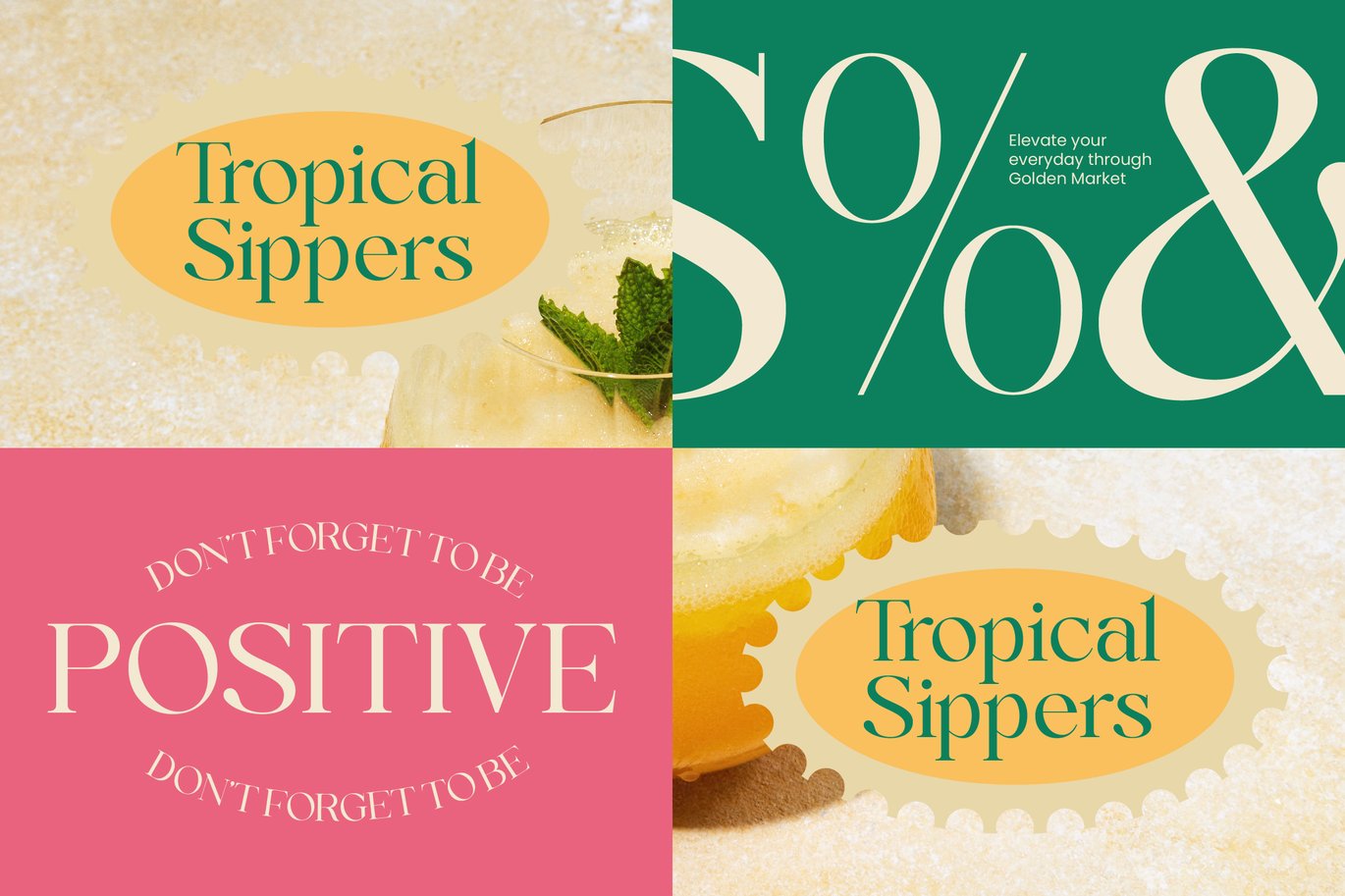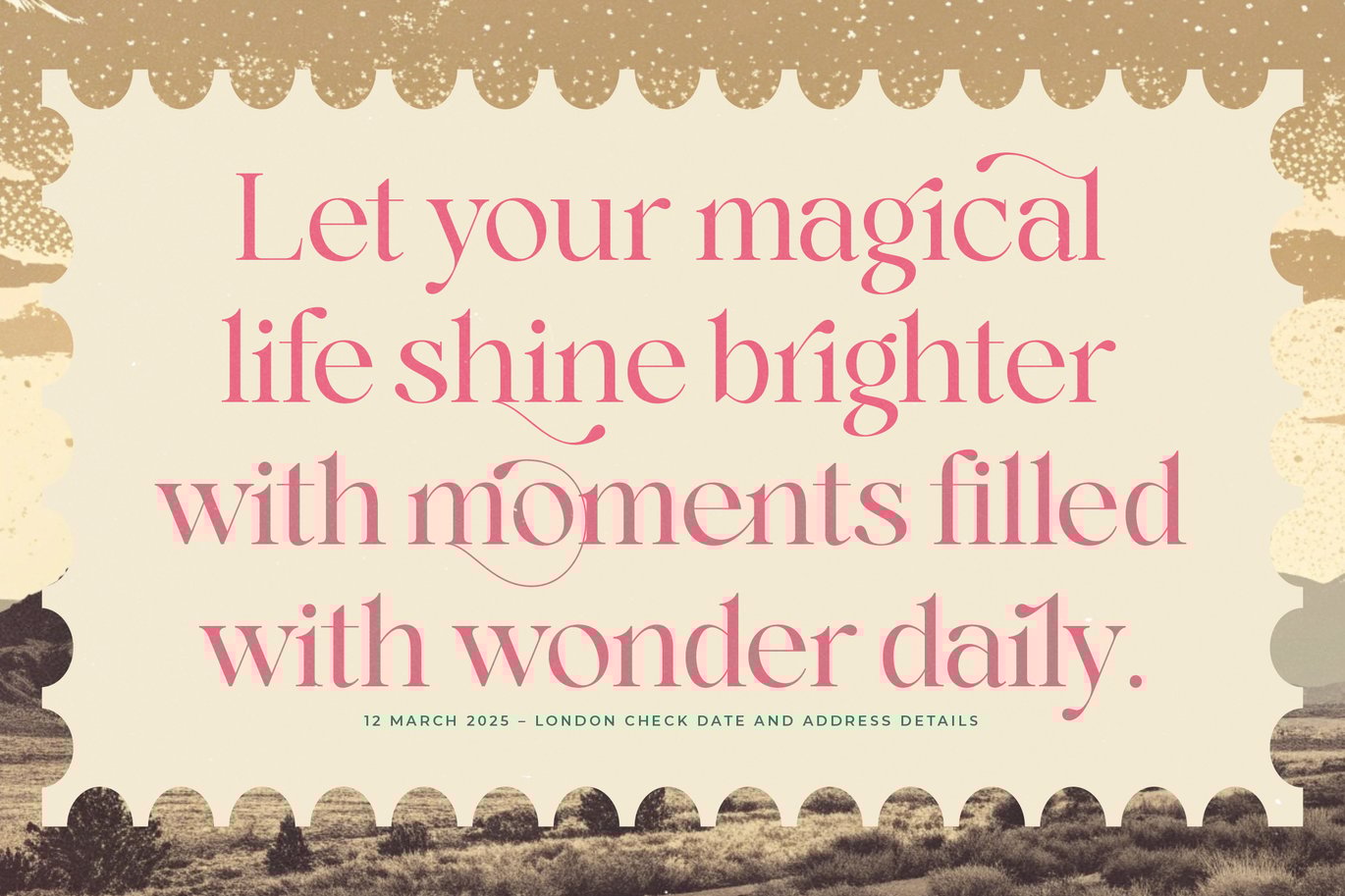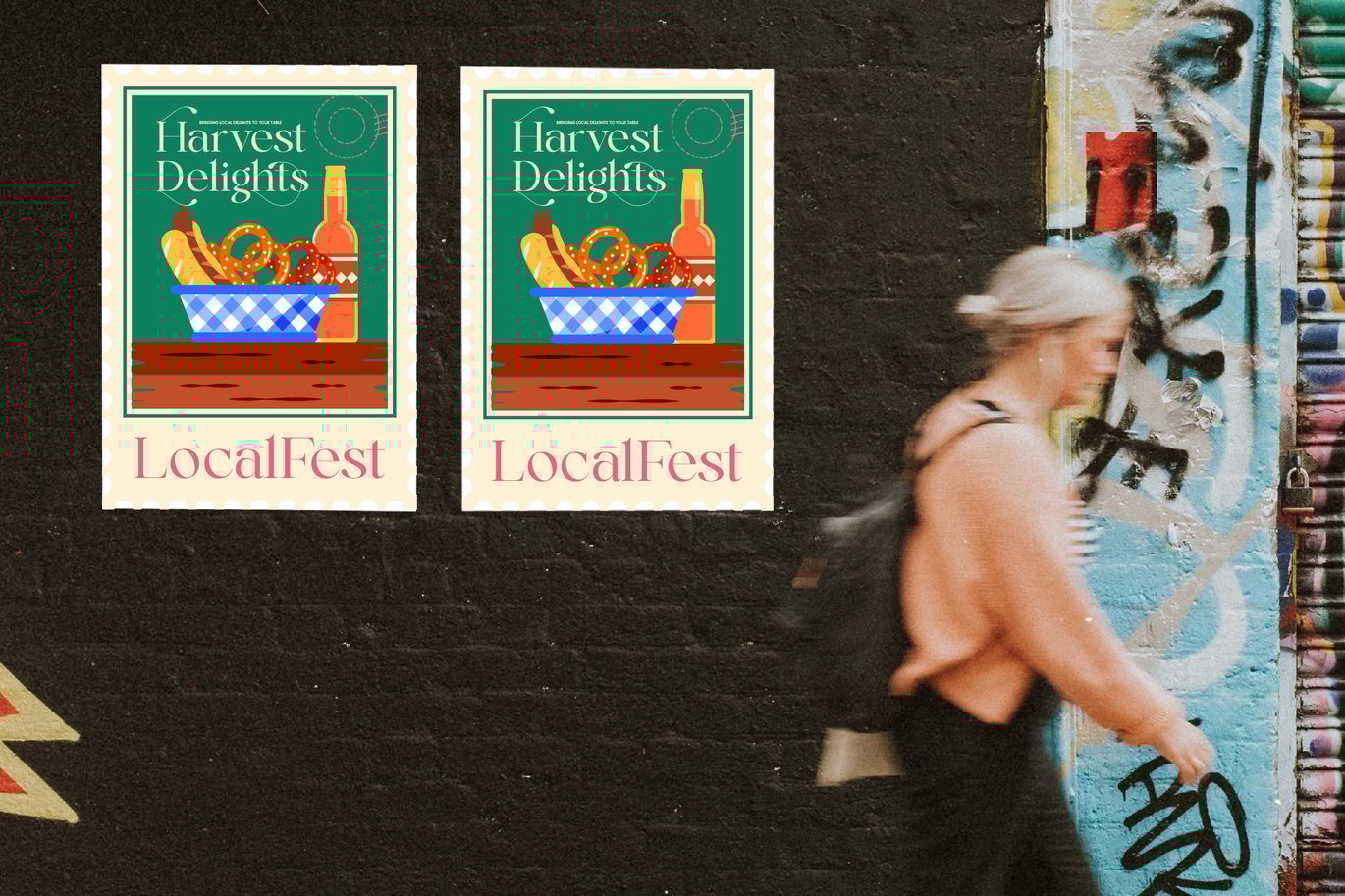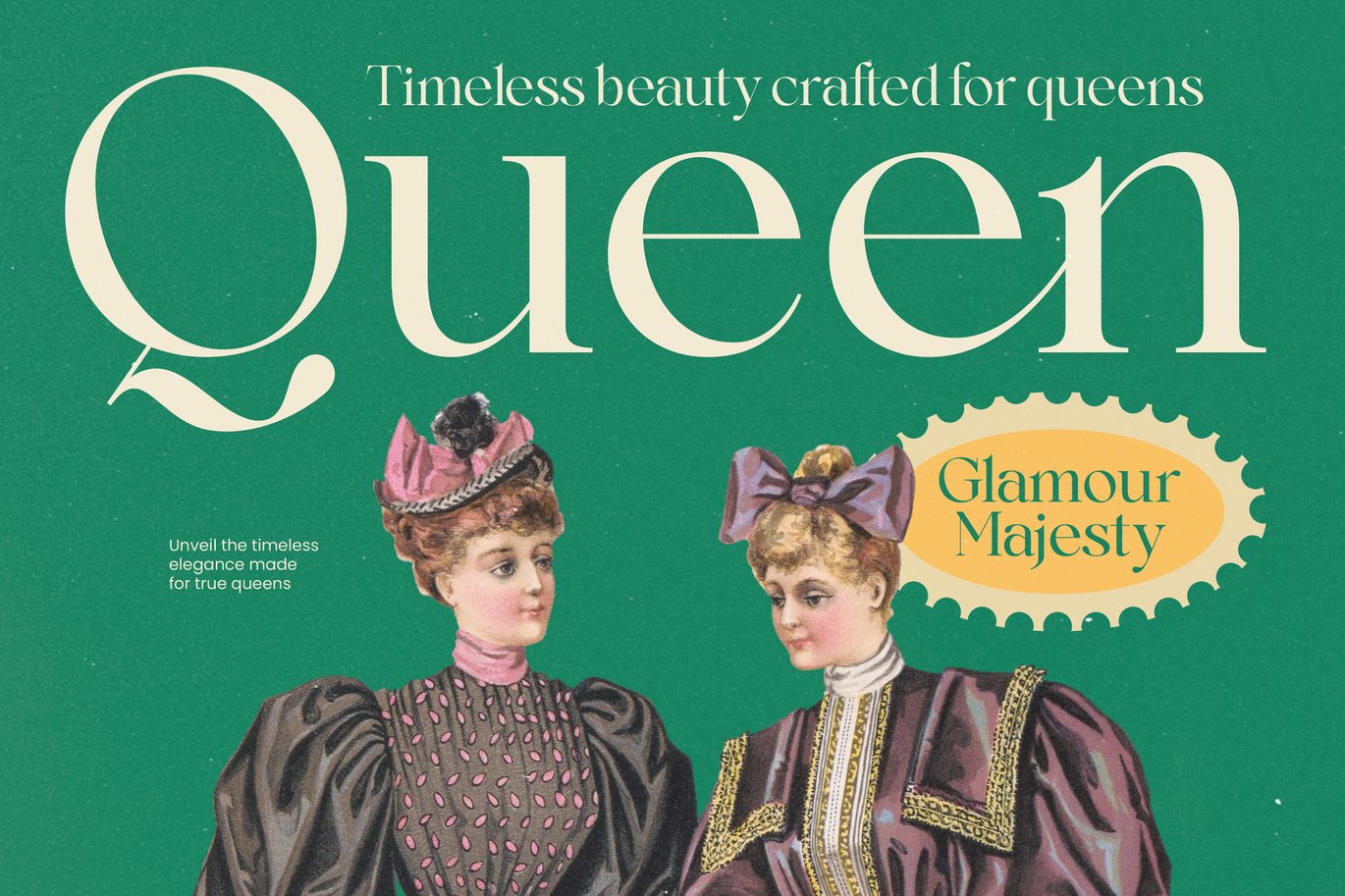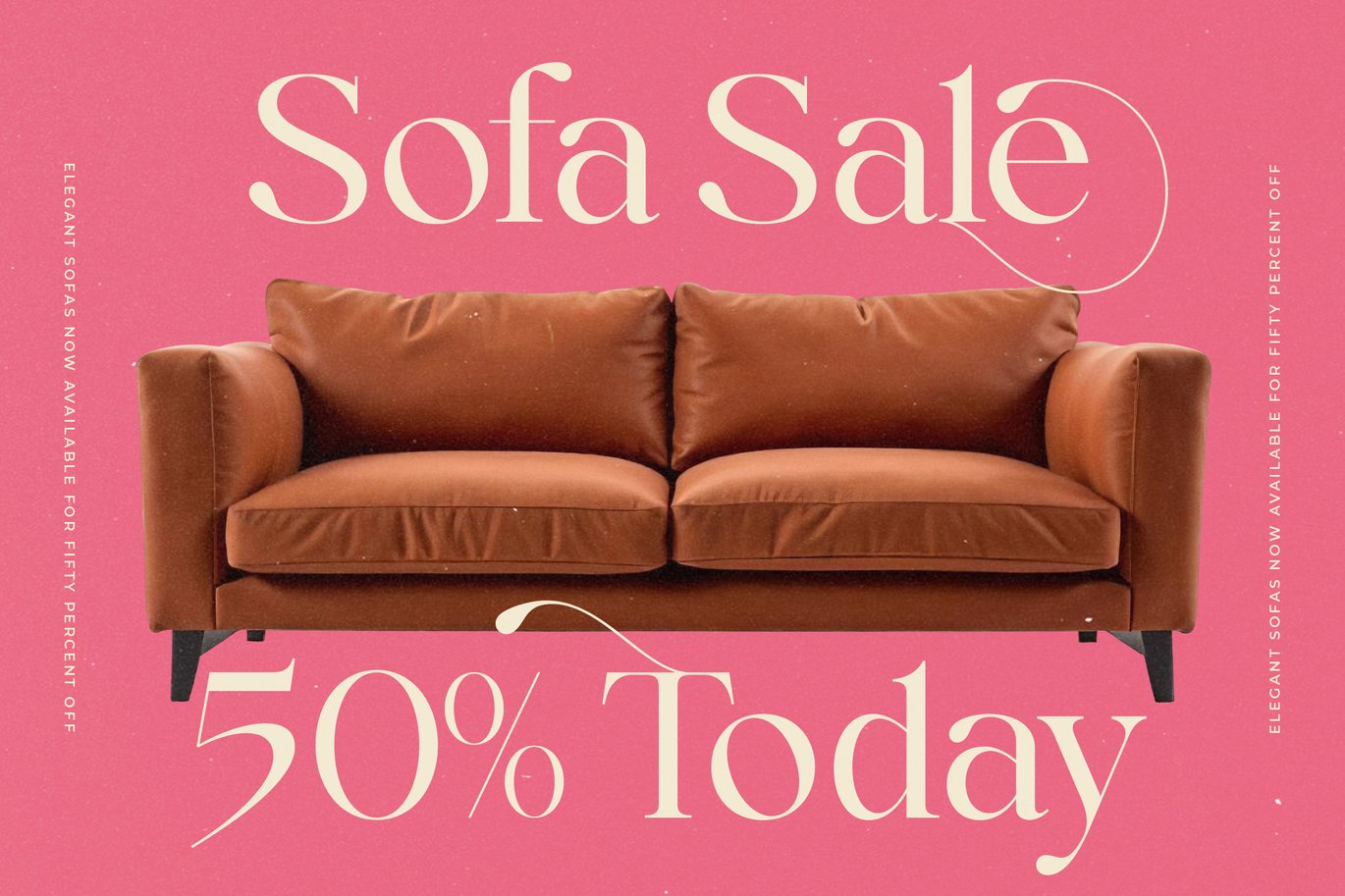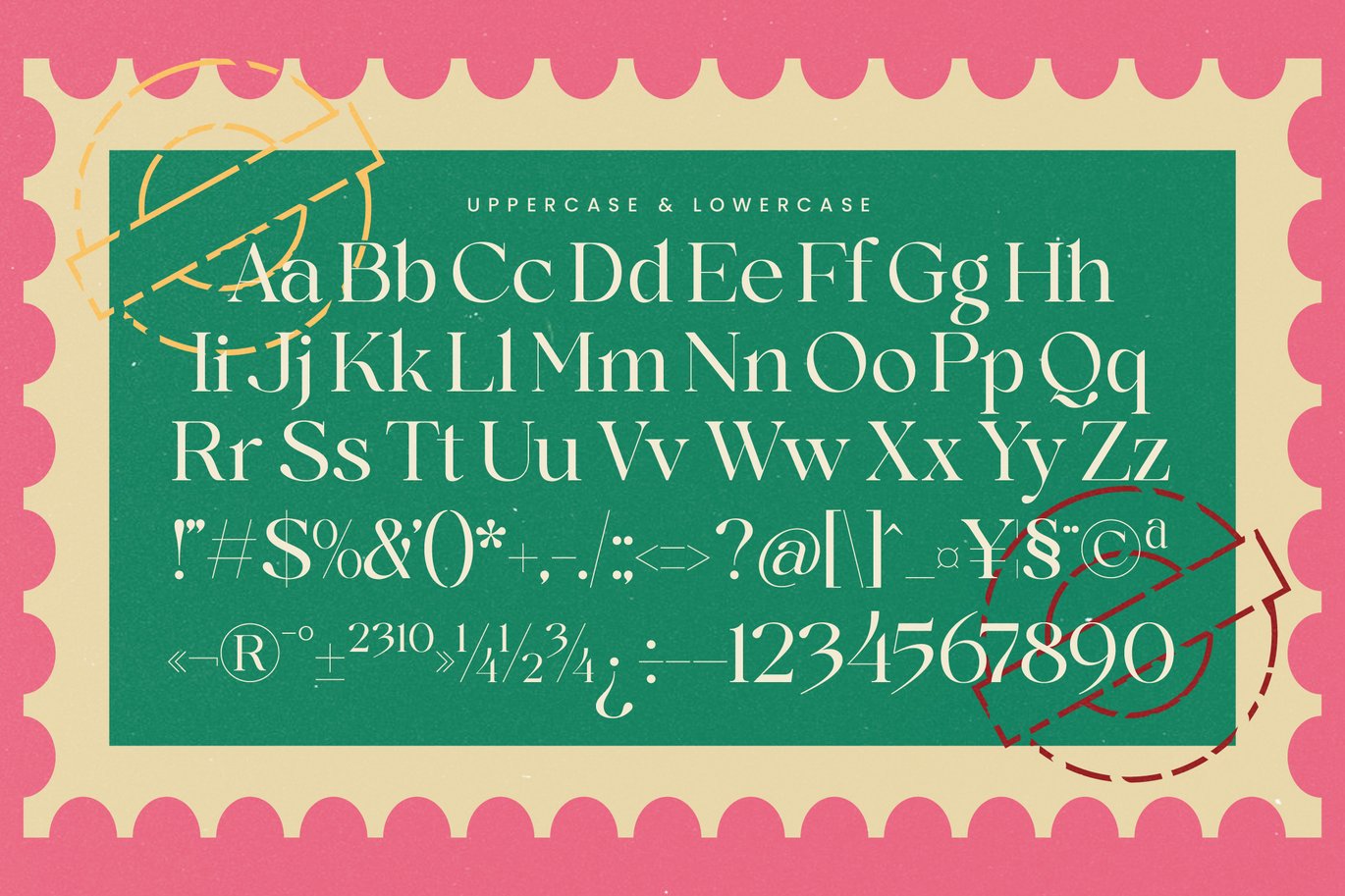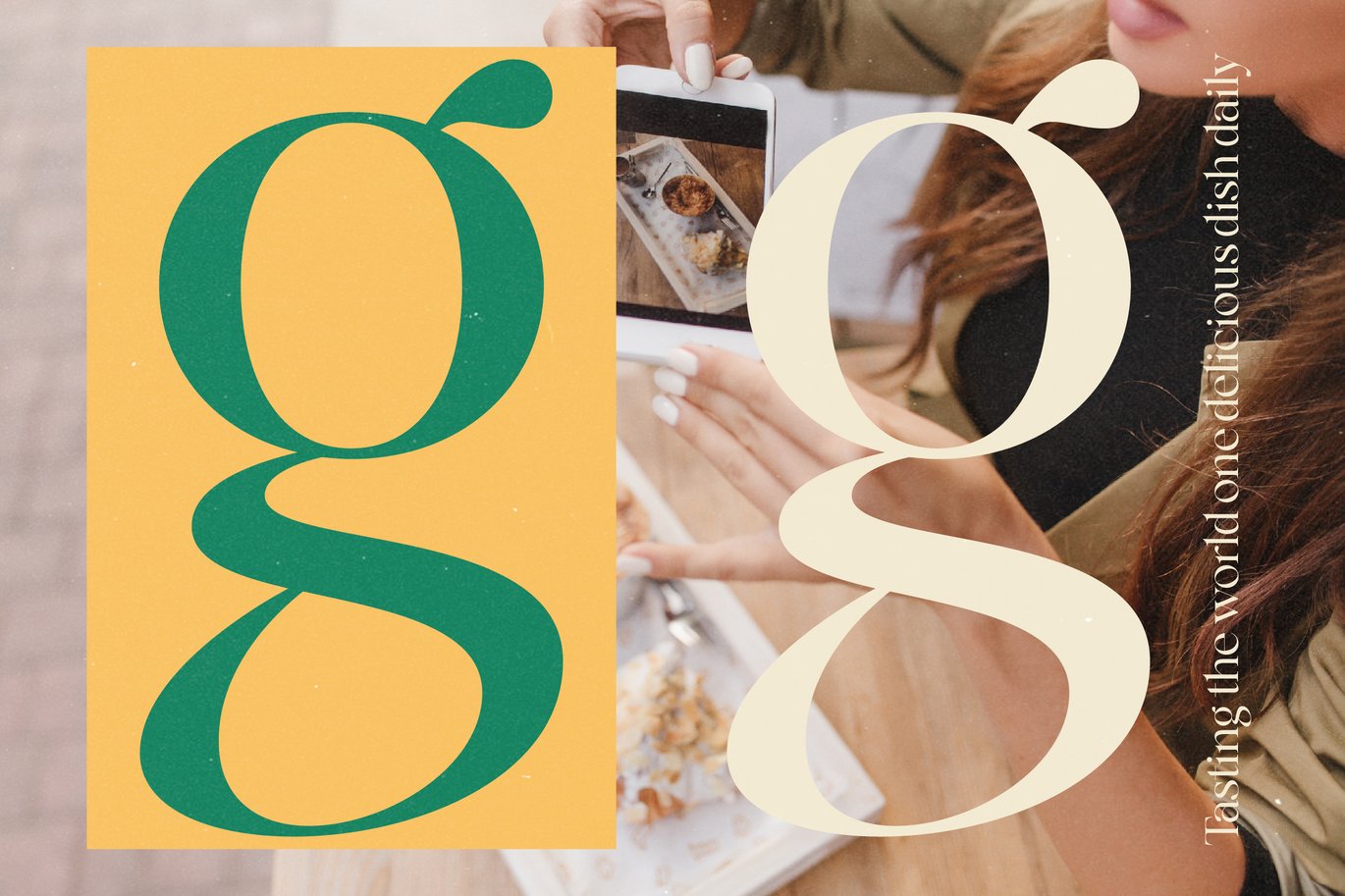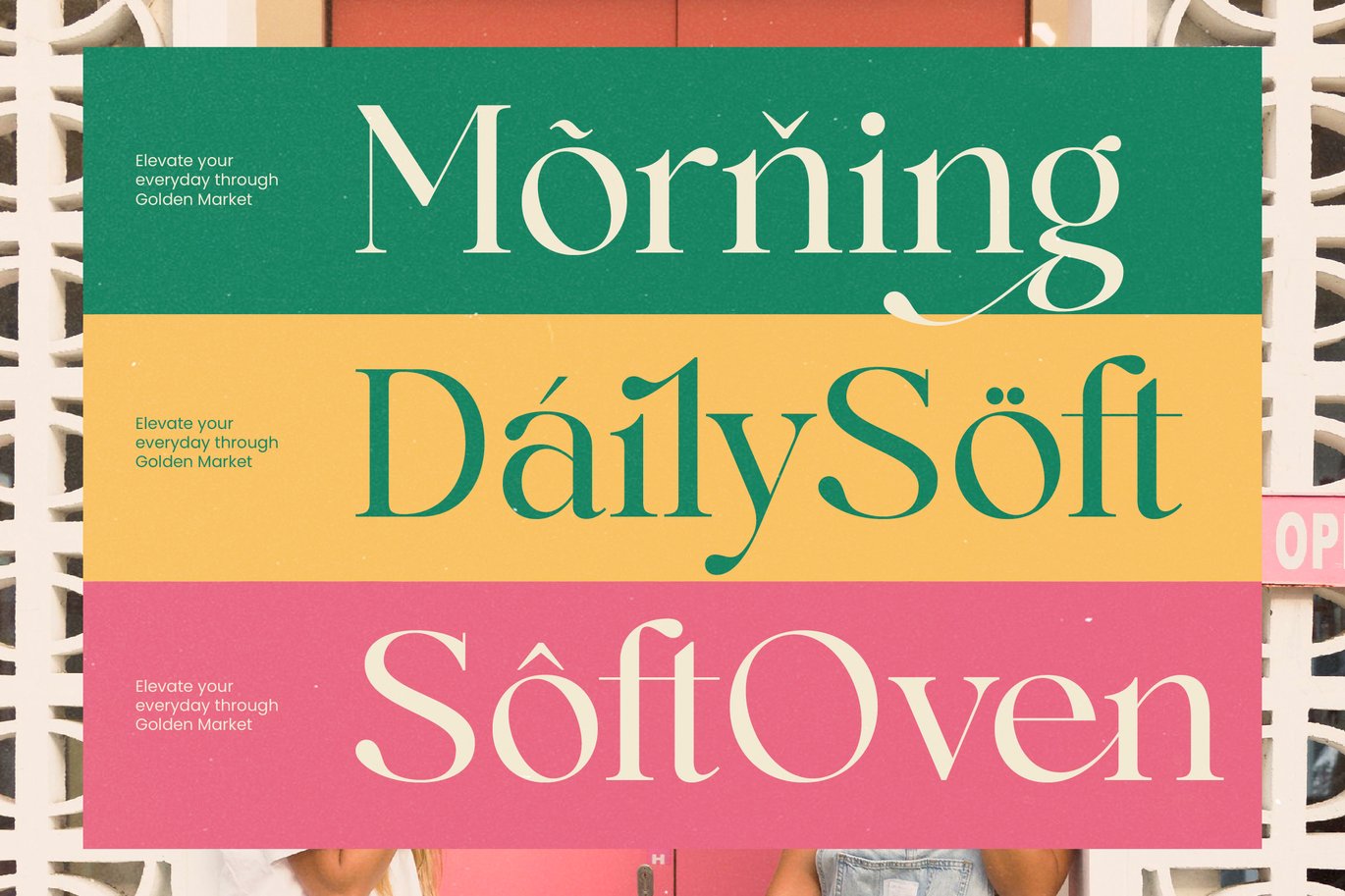
Market Golden - Elegant Serif Font
Market Golden is an elegant serif display font crafted with refined curves, stylish contrast, and a graceful modern-classic structure. Its luxurious details and flowing ornamental strokes make it perfect for high-end branding, editorial layouts, boutique packaging, invitations, logos, and artistic visual identities.
The font carries a sophisticated charm that blends contemporary elegance with timeless serif beauty—ideal for designers who want a premium, expressive, and polished aesthetic. Featuring 26 ligatures and 91 alternates (total 448 glyphs), Market Golden offers extensive creative flexibility for crafting unique wordmarks, decorative compositions, refined titles, and elegant typographic arrangements. Its smooth curves, extended flourishes, and versatile stylistic options make it a standout choice for premium design projects requiring class, refinement, and expressive visual impact.